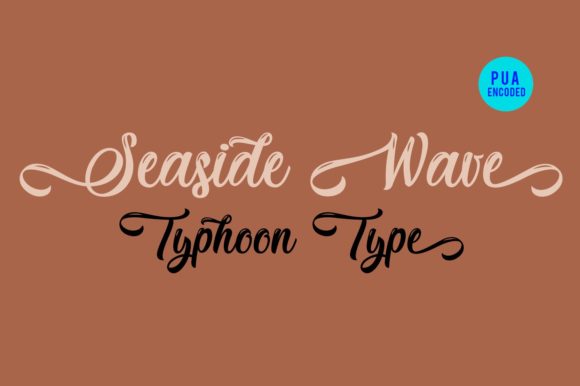
Seaside Wave Font
About Seaside Wave Font
Seaside Wave is a new handwritten font for your design needs.
This font is perfect for logos, name tags, advertising, product packaging, clothing, social media, greeting card and more.